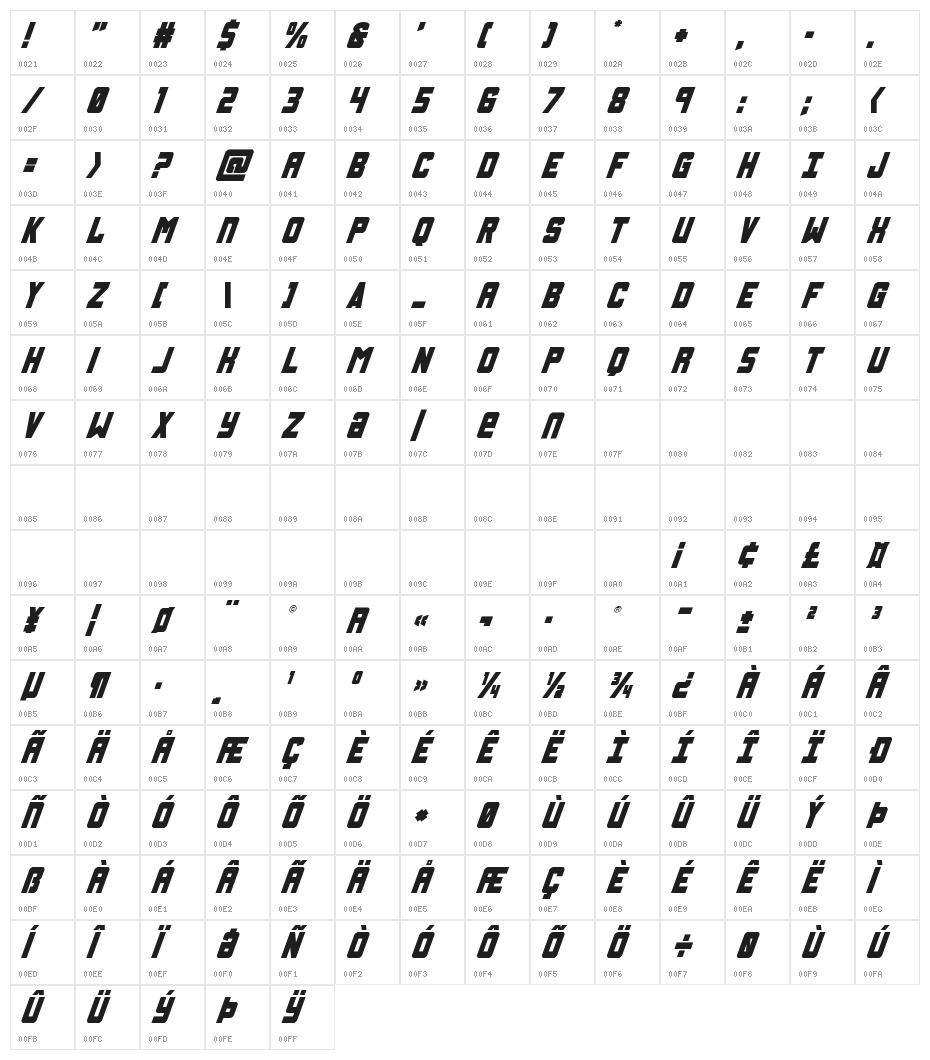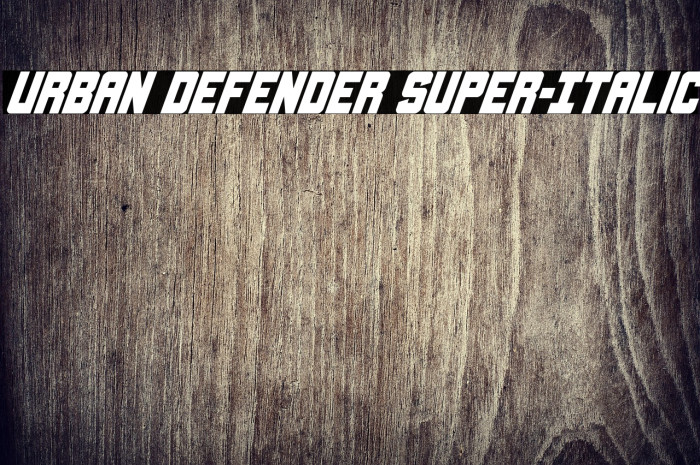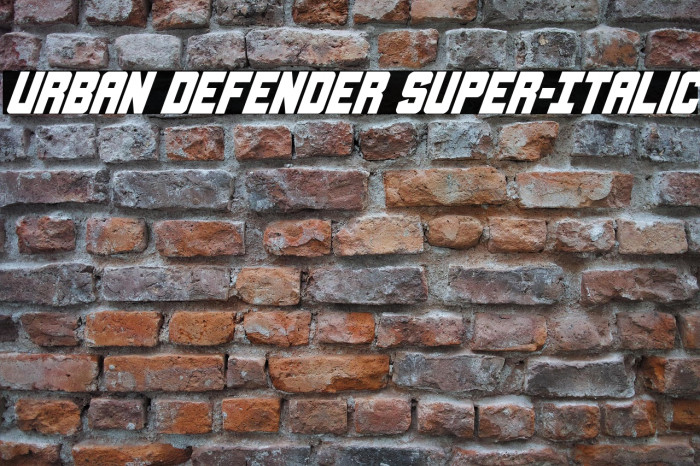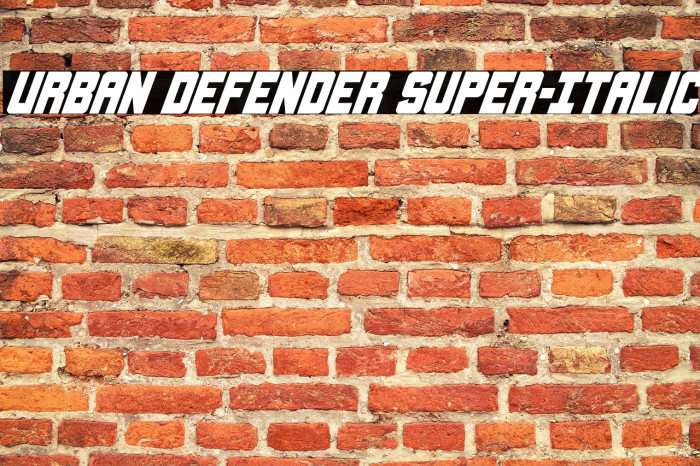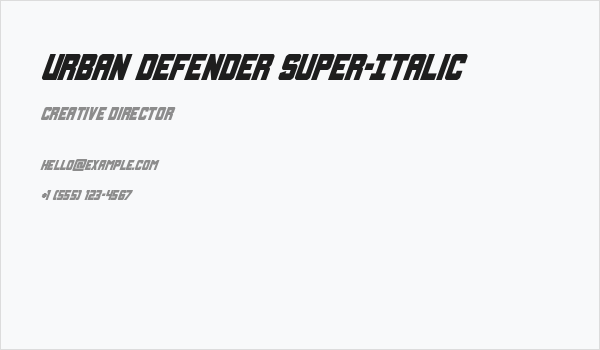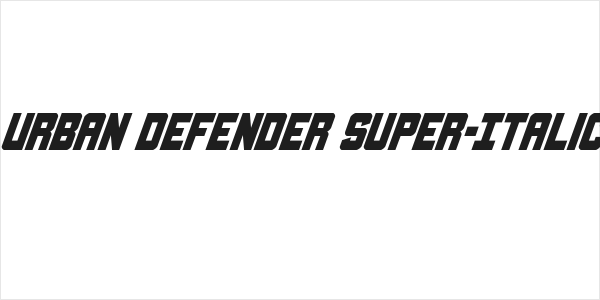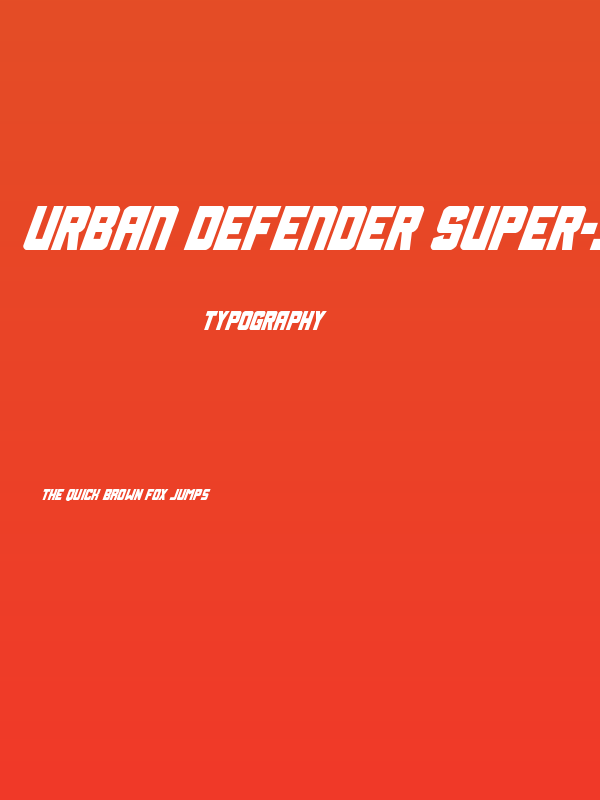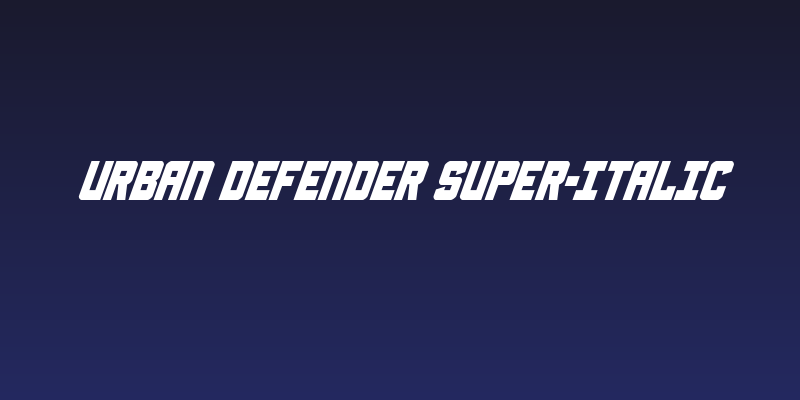
Urban Defender Super-Italic Font
Urban Defender Super-Italic Description
This font features a bold and dynamic style with a strong italic slant, giving it a sense of motion and energy. The characters are blocky and geometric, with sharp angles and a consistent stroke width that conveys a modern and assertive appearance. The uppercase and lowercase letters maintain a uniform height, enhancing readability while preserving the font's distinctive style. The numbers and special characters are designed to match the boldness and angularity of the letters, ensuring a cohesive look across all text elements.
| Proposed Projects | Ideal for sports branding, action-themed posters, video game titles, and dynamic logo designs. |